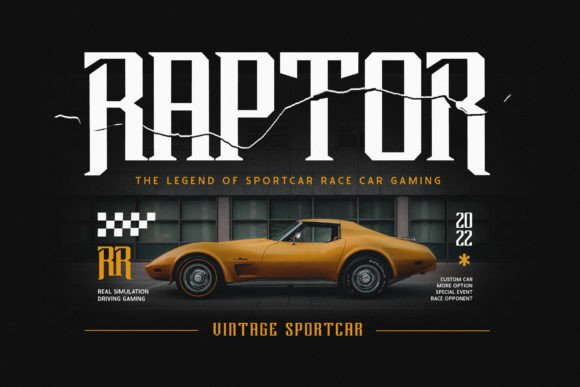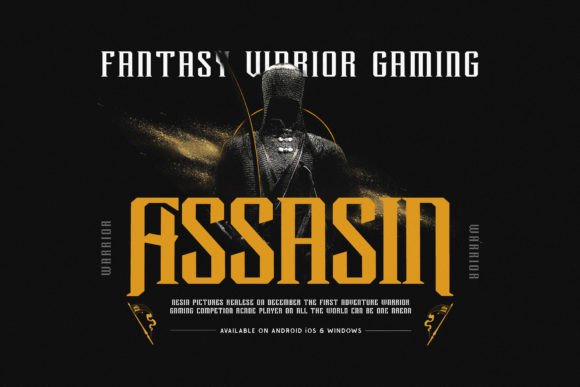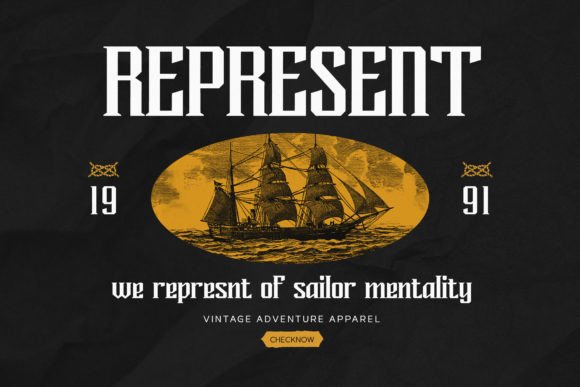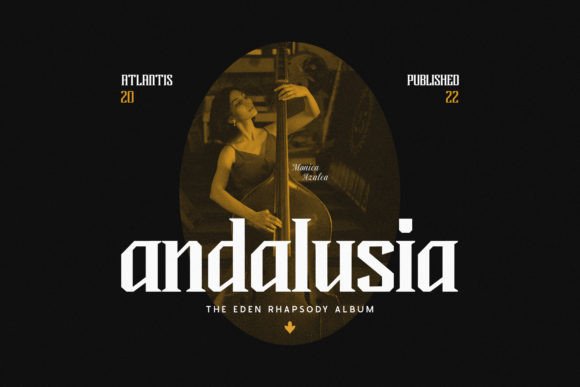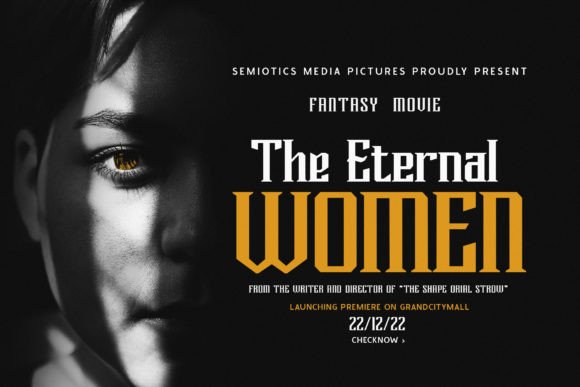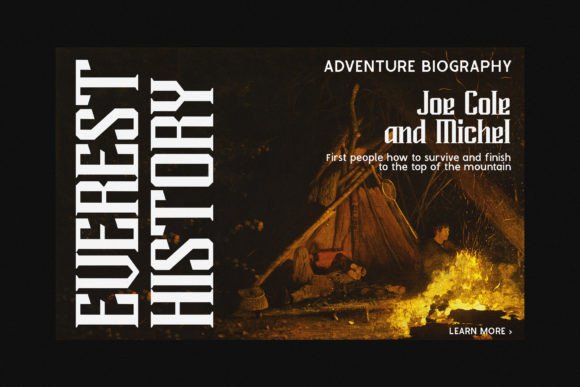
Introduction to Resenger Font
Resenger – wild vintage adventure camp – mountain hiking condensed slab serif font.
Suitable for any design needs: logo, branding, modern advertising design, vintage garage design, adventure/mountain hiking brand, hardcore music, animation or movie, logos, retro summer poster quote, book/novel cover title, editorial design, website/blog, card, and more .